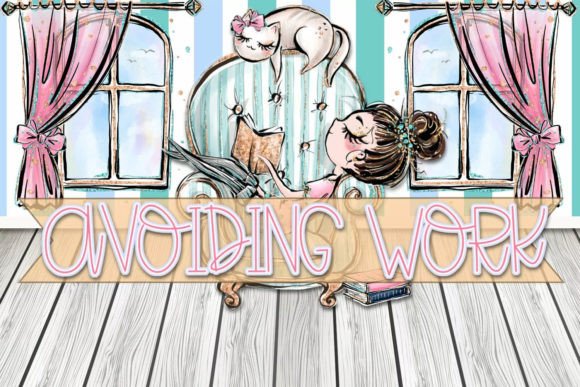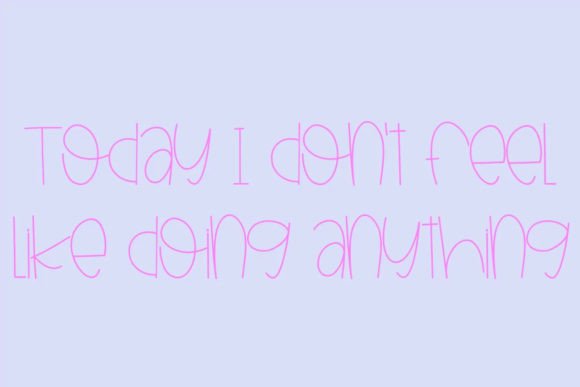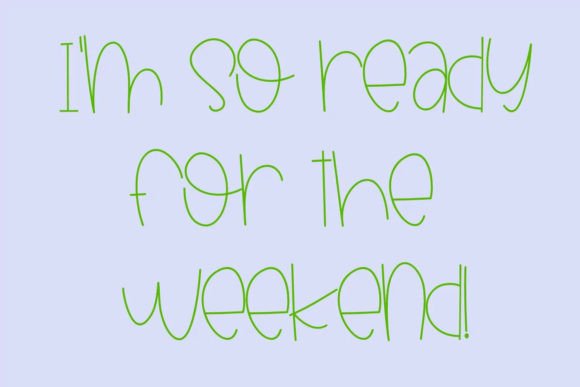
Avoiding Work Font
About Avoiding Work Font
Introducing Avoiding Work, a skinny and tall handwritten font with a quirky modern look. This font is designed to bring a unique and stylish touch to a variety of crafts and projects, invitations, cards, and more!
The quirky modern characteristics of Avoiding Work make it versatile for various applications. Imagine using it on playful invitations, where it adds a touch of whimsy to the event. Picture Avoiding Work on cards or crafting projects, where its skinny and tall design creates a distinctive and modern aesthetic.
Avoiding Work is not just a font; it’s a design asset that brings a fun and quirky vibe to your projects. Download it today and explore how it enhances your invitations, cards, and various creative endeavors. Let Avoiding Work be the key to unlocking a world of playful and modern design in your projects!